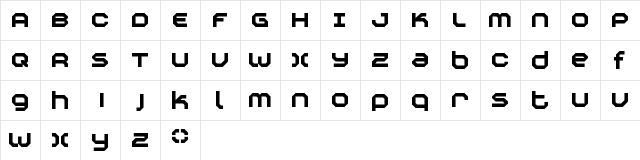
Construktiv Regular
Design Context for Construktiv Typeface
Construktiv takes a measured approach to typography — its balanced proportions and neutral character make it a reliable workhorse for both digital and print work.